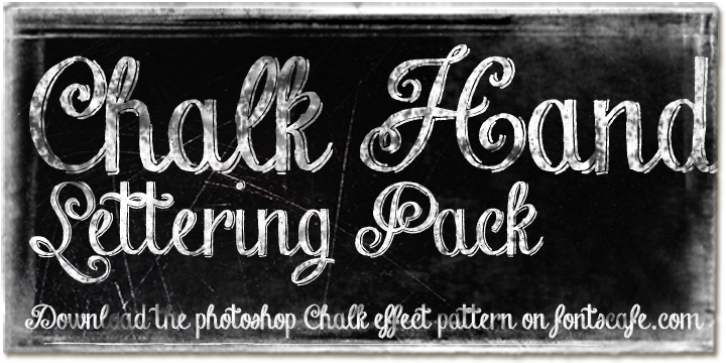
If you are into the vintage feel, you will love this one. This is as vintage as it probably gets. There are probably only a handful of places in the world where schools still use blackboards and chalk – they’ve given way to their white board and marker counterparts for decades now. White boards are definitely more practical and less messy when compared to chalk, but then if you are creatively inclined you will agree that a little bit of mess is worth it if you are going to get the effects that you desired! Well, we can give you the effects minus the mess with our chalk hand lettering fonts! As the name suggests, this font gives you that distinctly unique chalk on slate feel, and if you are wondering what’s distinct about it; writing on slate or blackboard was a slow process which required deliberated and concentrated efforts resulting in a handwriting which was usually quite different to a person’s handwriting on paper.
Typography of chalk on slate was an everyday event in the classrooms of yesterday, and today we hardly ever get to see one of these if it all. Writing on a black board with chalk was quite an interesting achievement in its own right, if you ended up with anything legible and if your writing remained focused and ‘in-line’! But of course like everything else, his took time to master and when you did get it right, chalk hand lettering was quite an enjoyable experience! For semi-permanent designs, say for example an eventful day at school; students of the day would create beautiful typography on the boards, and add a solidarity to it sometimes by shading one side of the lettering – usual y the right side towards which the lettering leaned. This is the effect our chalk hands lettering shaded variation gives you. You could get this font individually, but we strongly advise you check out the “chalk hand lettering pack” font. It includes the simple “chalk hand lettering” (minus the shading effect) and also a “chalk hand elements” bag of tricks. The elements is a collection of graphic art which resemble shapes and designs that used to be added to chalk art, to beautify the typography.
If you enjoyed seeing the effects of our Chalk Hands font, and the shaded variant – you are simply going to go gaga over Chalk Hand Elements! The chalk hand font of course enables you to make typographic art similar to the effect of chalks on slates and black boards. This was quite the art form in the days gone by! The shaded variation added a bit of solidarity and the technique was commonly used to make semi-permanent designs say for example a welcome note when somebody important was to visit.
Classic chalk hand designs, especially the semi permanent ones often had little pieces of art to help beautify the creation as a whole. It could simply be symmetrical graphics appearing before and after the title and headings, maybe just an interesting shape to fill in an empty area on the board, and such…our Chalk Hand Elements offers you a ton of such graphics.
The two chalk hand variations and the elements are all included in the Chalk Hand Family, and this is strongly recommended if you want to make designs that are truly reminiscent of the days of chalk on slate.